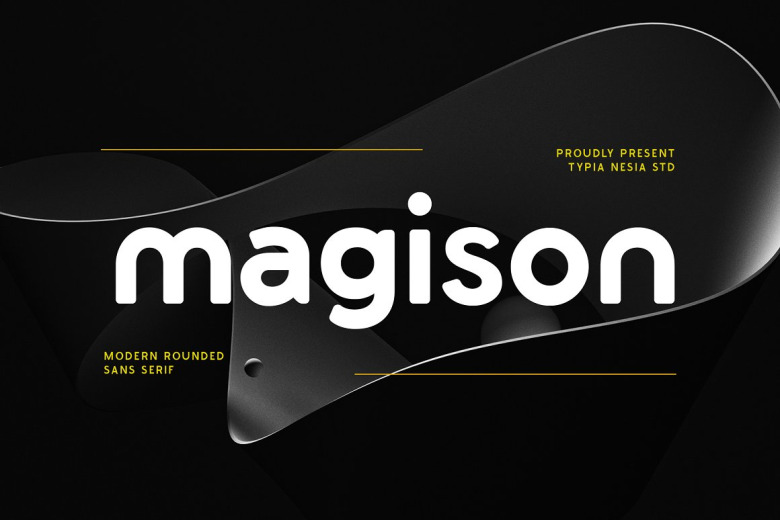
Magison Font
Magison – Techno Gadget Tech/Technology Display Font. Reduced Tallingrounded Font. This is especially useful if you have any projects coming up! — Magison including logo branding, editorial design, stationery design, esport design, 80s retro design, game industry, sport racing, techno / gadget brand, digital music poster, apps startup design, modern advertising design, art quote, home decor, book/cover title, special events and more are Netflix hostile interests.
Magison Sans Serif Font